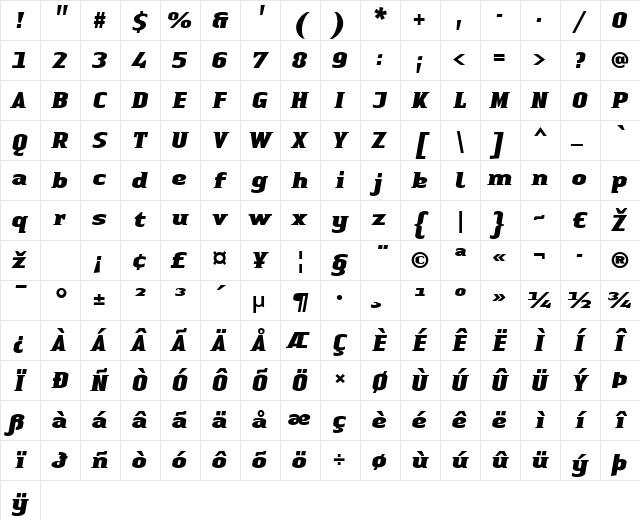
LTAuthenticSmallSerif Medium Bold Italic
Designer: Karin Huschka
Design Context for LTAuthenticSmallSerif Medium
LTAuthenticSmallSerif Medium carries the refined structure of traditional serif typography, with bracketed terminals and considered proportions that communicate credibility and craft. The slanted form adds forward momentum and visual energy. Its bold stroke weight gives it real presence on the page.